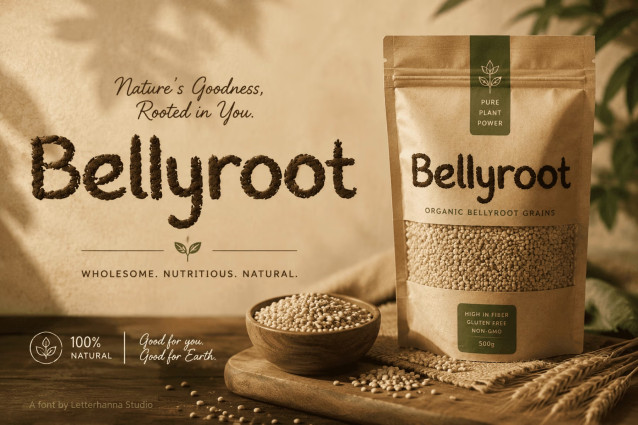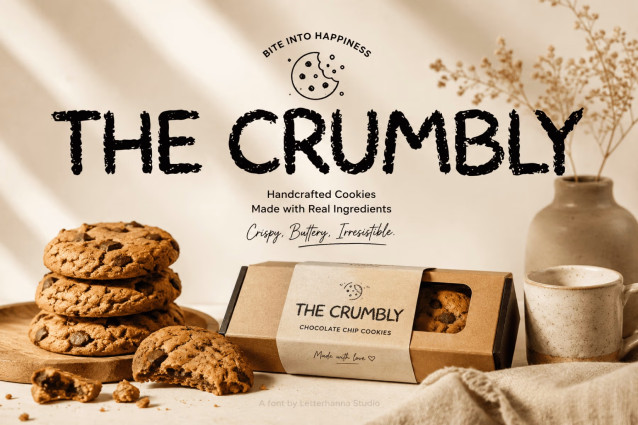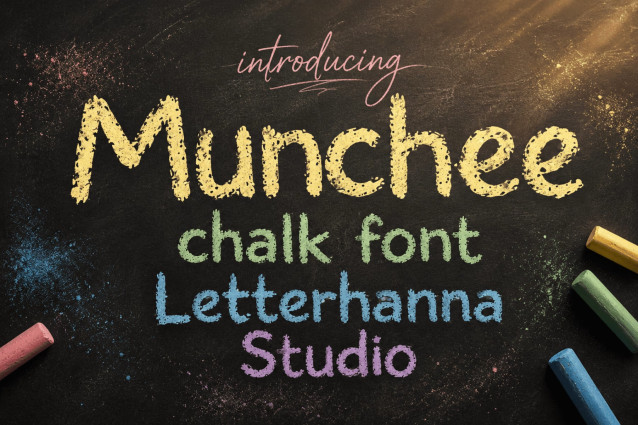
Looking for a chalk font that feels alive on the page? Meet Munchee — an expressive, hand-textured typeface built for brands that refuse to be boring.
Munchee is an expressive, hand-textured chalk display font with a friendly, approachable tone. Its rounded letterforms feature rugged edges and uneven corners that mimic the natural texture of a crayon or chalk pressed onto rough paper. This bouncy rhythm gives the typeface an unmistakable handmade charm and a warm, human aesthetic.
Best suited for kids’ designs, birthday invitations, storybook covers, and playful packaging. It is also a natural fit for bakery branding, coffee shop signage, craft market labels, and organic food packaging where a design needs warmth over polish.
Every stroke in Munchee looks like it was pressed onto rough paper with real chalk. The edges are rugged, the corners uneven, and the personality unmistakable. It’s not just a font — it’s a feeling.
Munchee blends the charm of a crayon font with the confidence of expressive display type. Rounded letterforms give it a friendly, approachable tone, perfect for anyone chasing a handmade, human aesthetic.